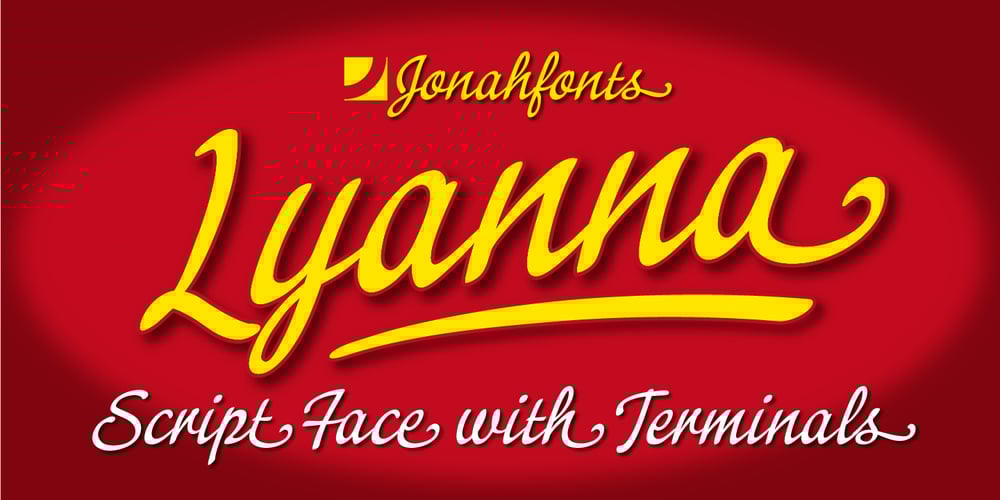
Lyanna Font Family was designed by published by Jonahfonts. Lyanna contains 1 styles and family package options. Free flowing legible connected-script with glyph terminals including all diacritics. Suitable for various applications such as captions, fashion headlines, packaging, invitations, cards, posters, ads, greeting cards and book jackets..